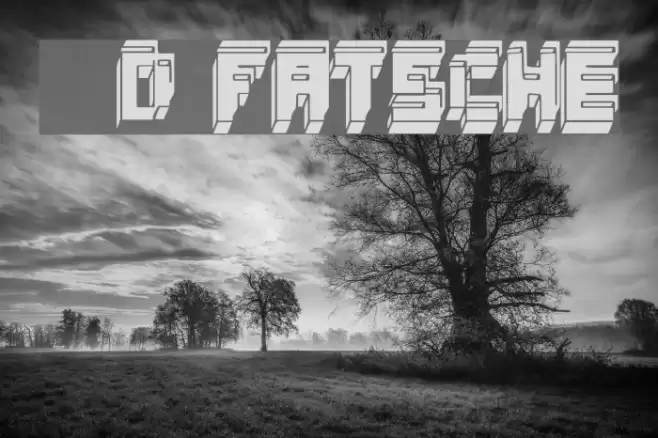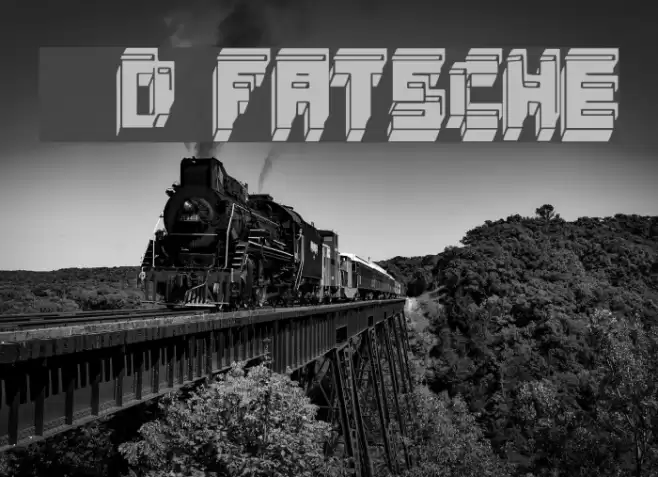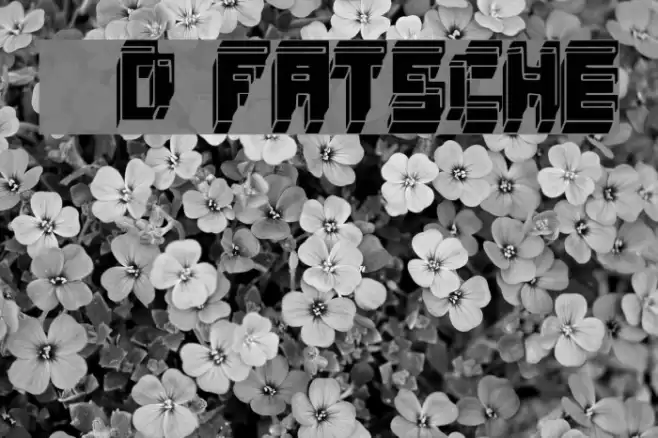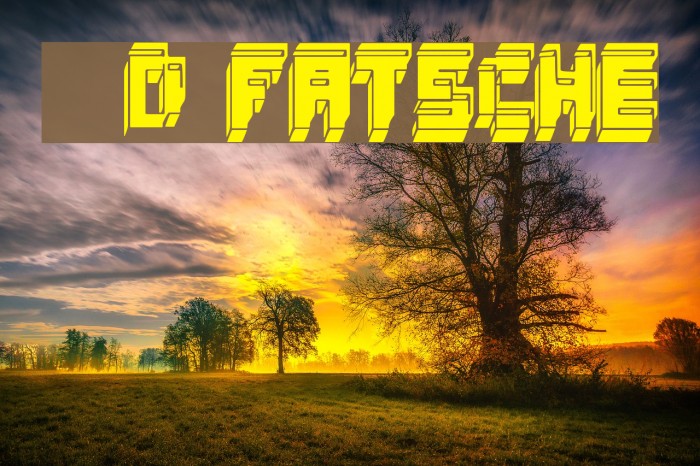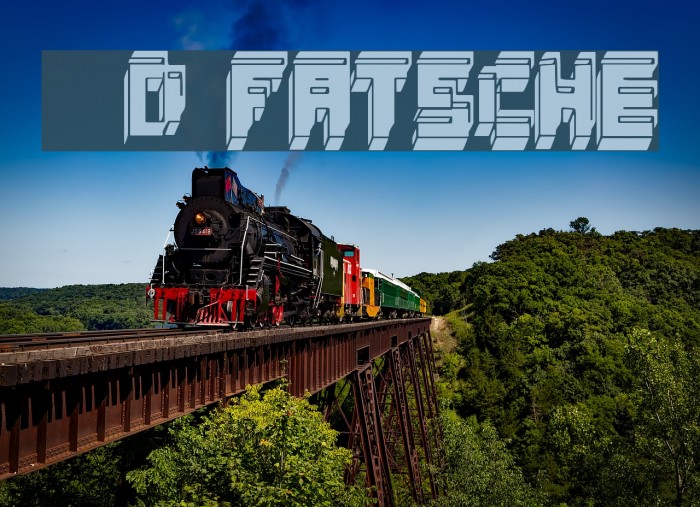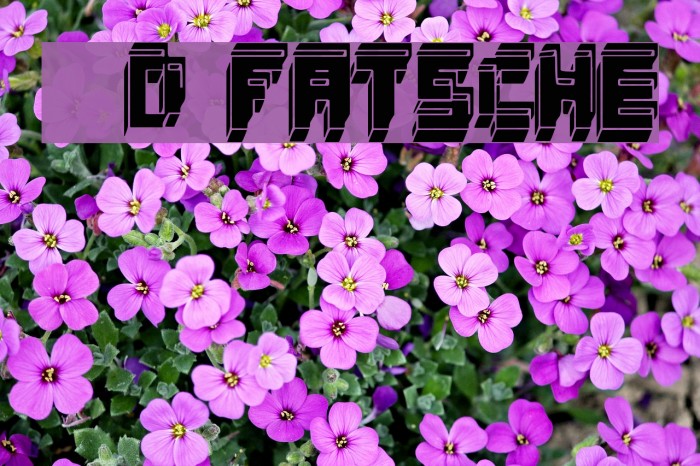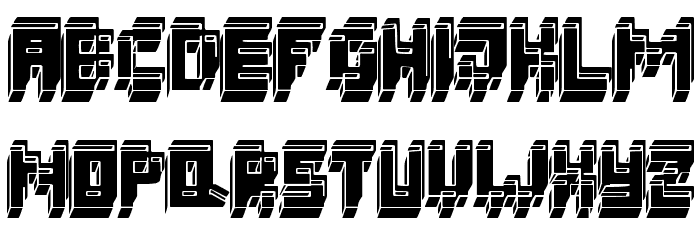
3d fatsche Font
3d fatsche Description
This font features a bold, three-dimensional design that gives each character a striking, block-like appearance. The letters are heavily stylized with a shadow effect that creates a sense of depth and volume. The geometric shapes and sharp angles contribute to a futuristic and dynamic look, making it ideal for attention-grabbing designs. The uppercase and lowercase letters maintain a consistent style, ensuring uniformity across different text sizes. The numbers and special characters are equally bold and match the overall aesthetic, providing a cohesive visual experience.
A bold, 3D geometric font with a futuristic and dynamic style from Uncategorized fonts.
- Proposed Projects: Ideal for posters, video game graphics, sci-fi themed projects, and bold branding materials.
- Overall Style: Modern, Futuristic